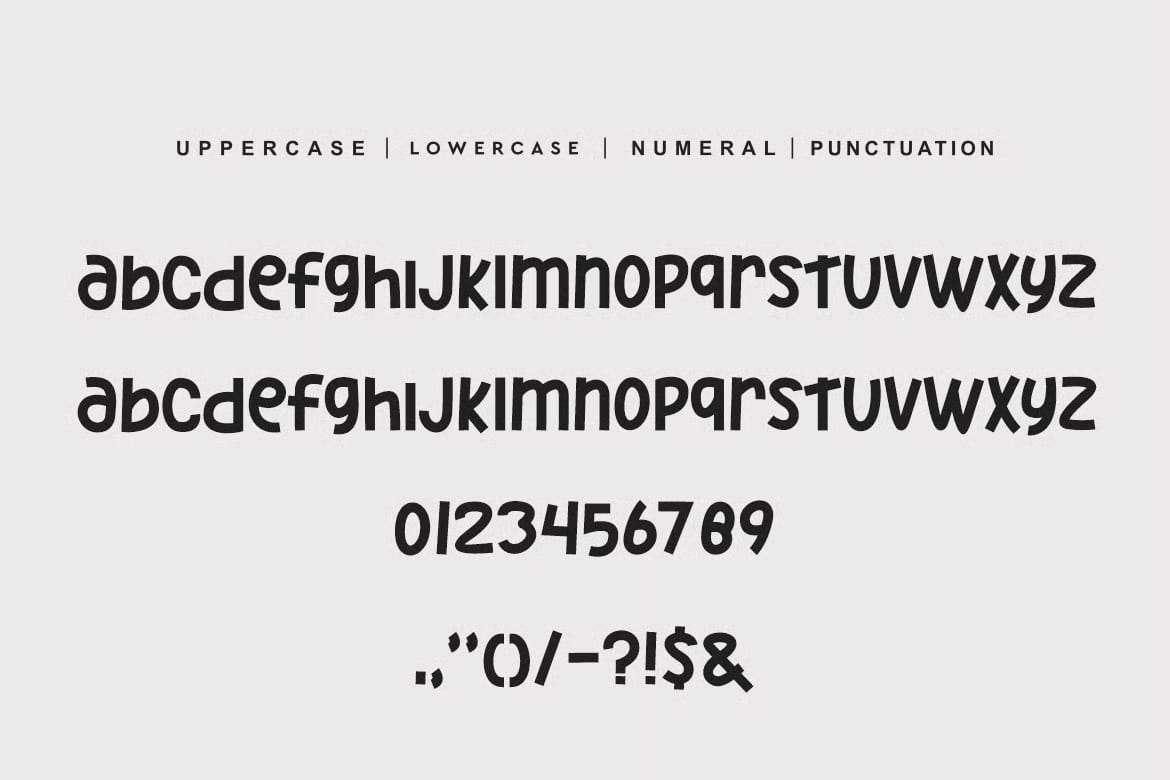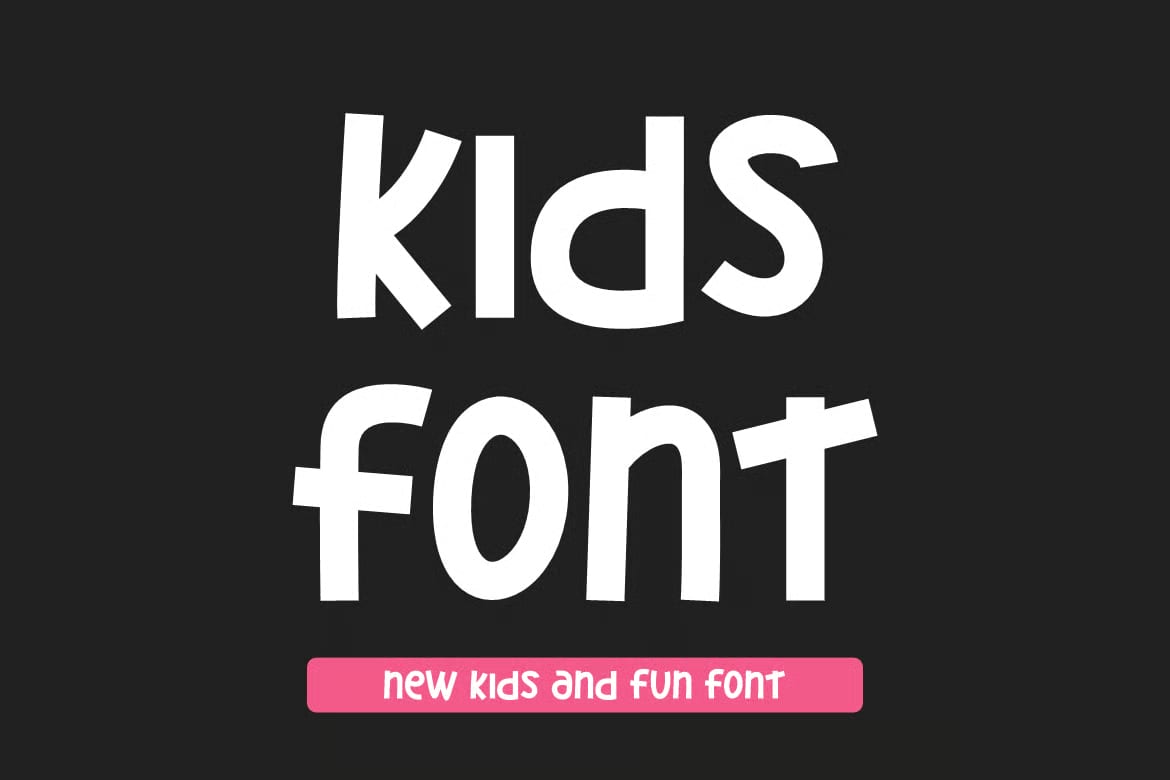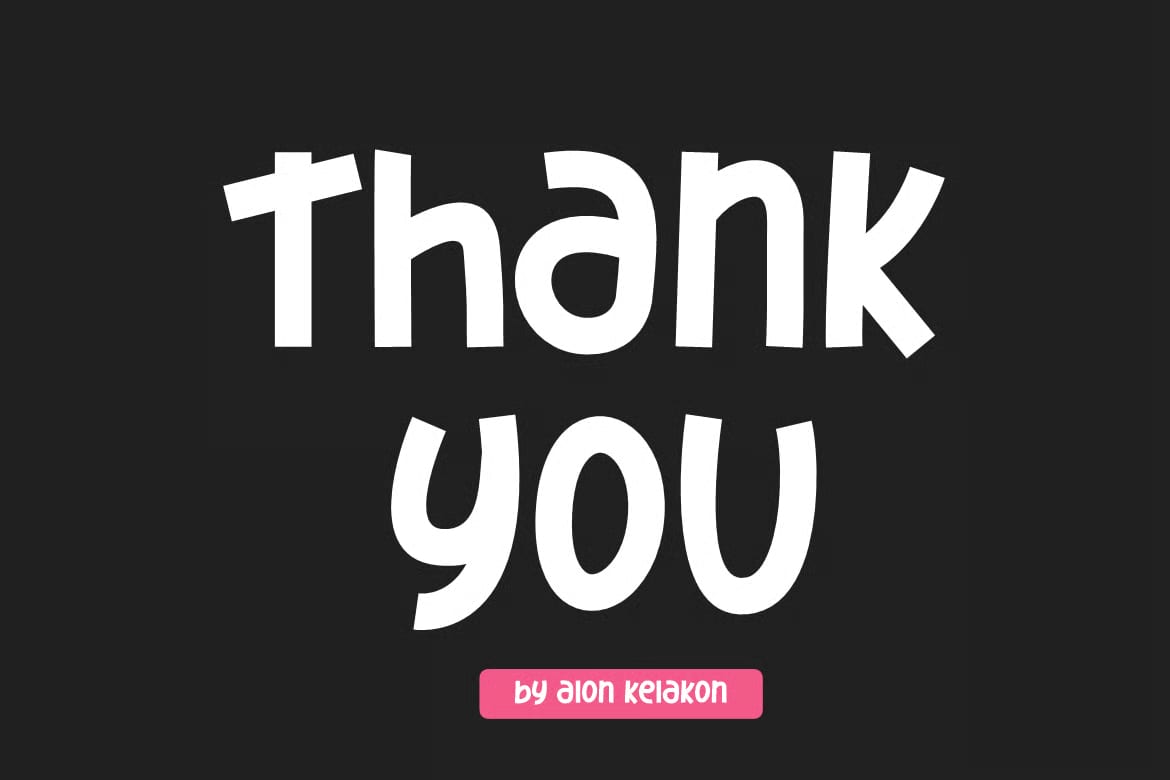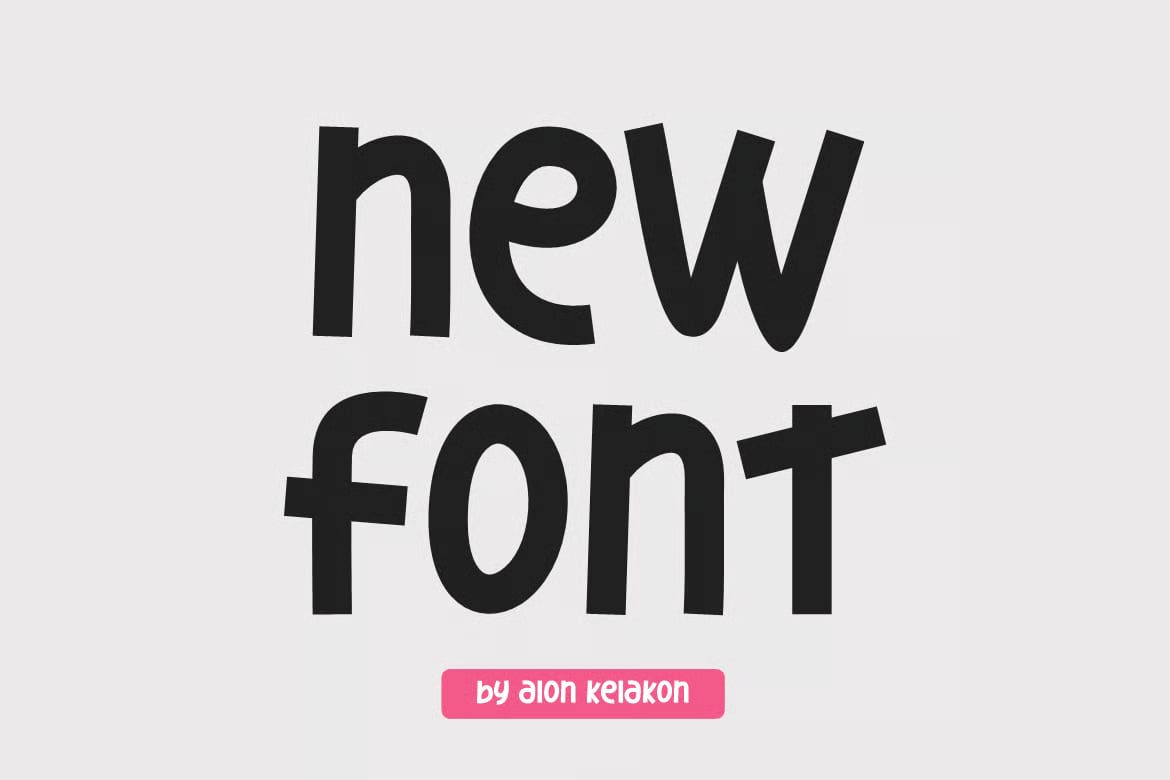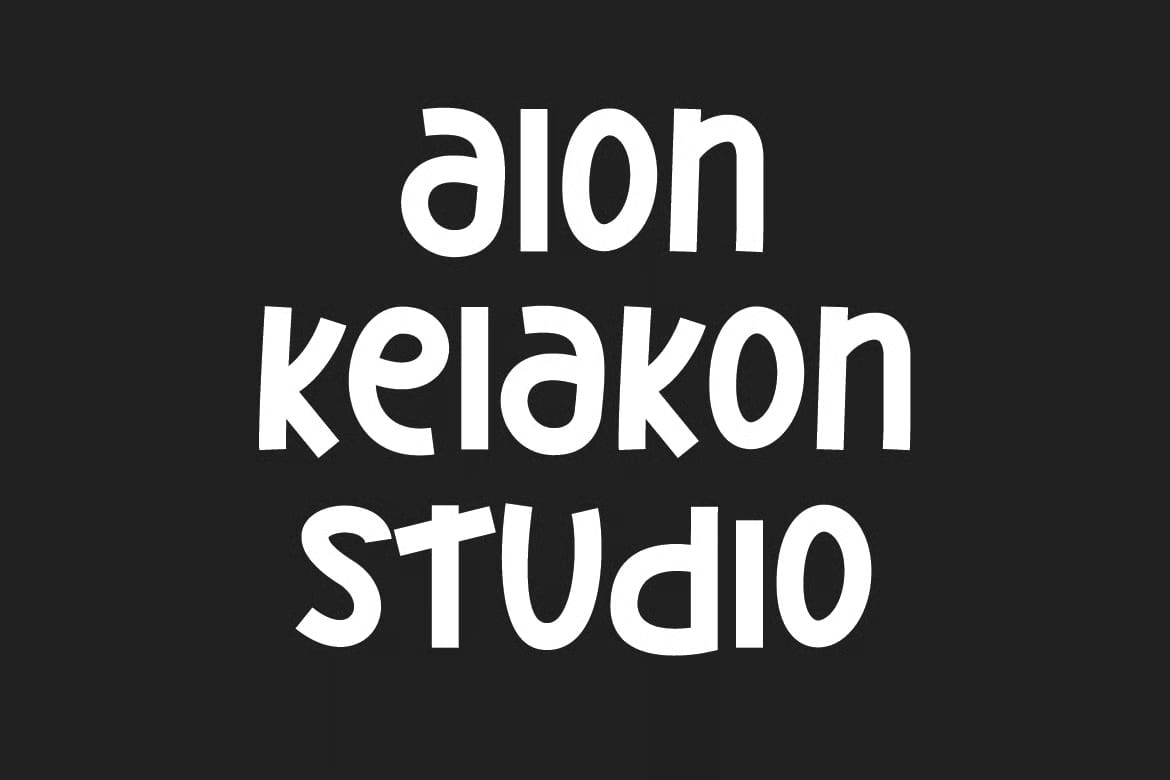
This font has a playful, handwritten feel that works well when you want your text to stand out without looking too formal. It has a casual style that fits creative projects and gives designs a more relaxed, friendly look. Because of that, it can be a good choice for branding and display use where the type itself needs to add personality.
You can use it in a wide range of design work, including labels, posters, movie titles, album covers, gigs, and logos. It also works nicely for other projects where a unique and fun type style makes the layout feel more lively. The spacing is normal, so it should be easy to place into your design without extra adjustment.